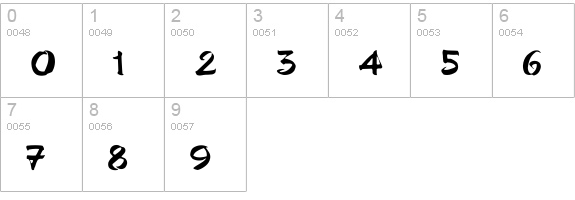
Polo Font Details
Polo font is a versatile and stylish typeface that exudes elegance and sophistication. With its sleek lines and modern design, Polo font is perfect for a wide range of design projects, from branding to editorial layouts. This timeless font is free to use and is available for download at FontsMarket.com, making it accessible to designers and creatives looking to add a touch of class to their work. Whether you're designing a logo, poster, or website, Polo font will elevate your project with its refined aesthetic and impeccable craftsmanship. Download Polo font today and discover the endless possibilities it offers for your design needs.